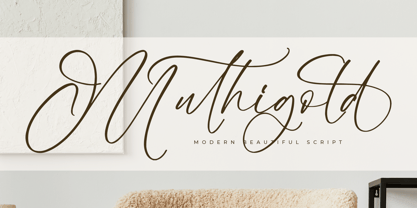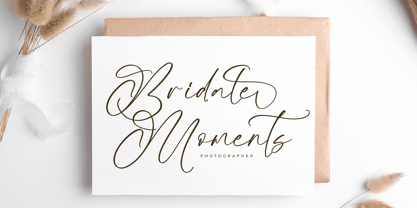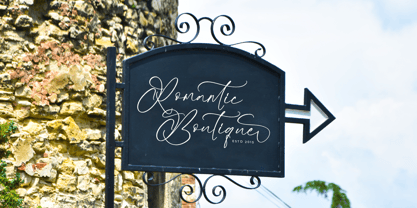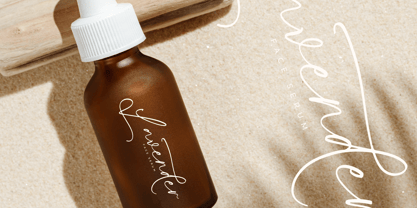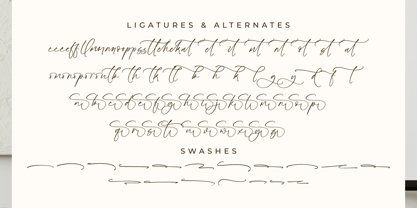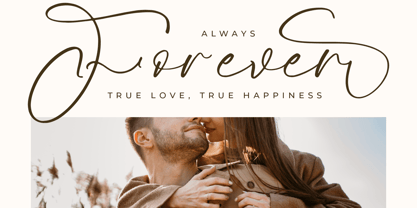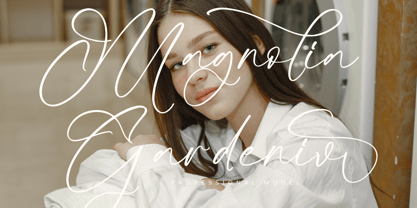
Muthigold
Muthigold – Modern Beautiful Script , from Letterena, is a Luxury Script font, suitable for any projects such as: logos, branding projects, homeware designs, product packaging, mugs, quotes, posters, shopping bags, t-shirts, book covers, name card, invitation cards, greeting cards, label, photography, watermark, special events, and all your other luxury and beautiful projects that need a Luxury Script taste.